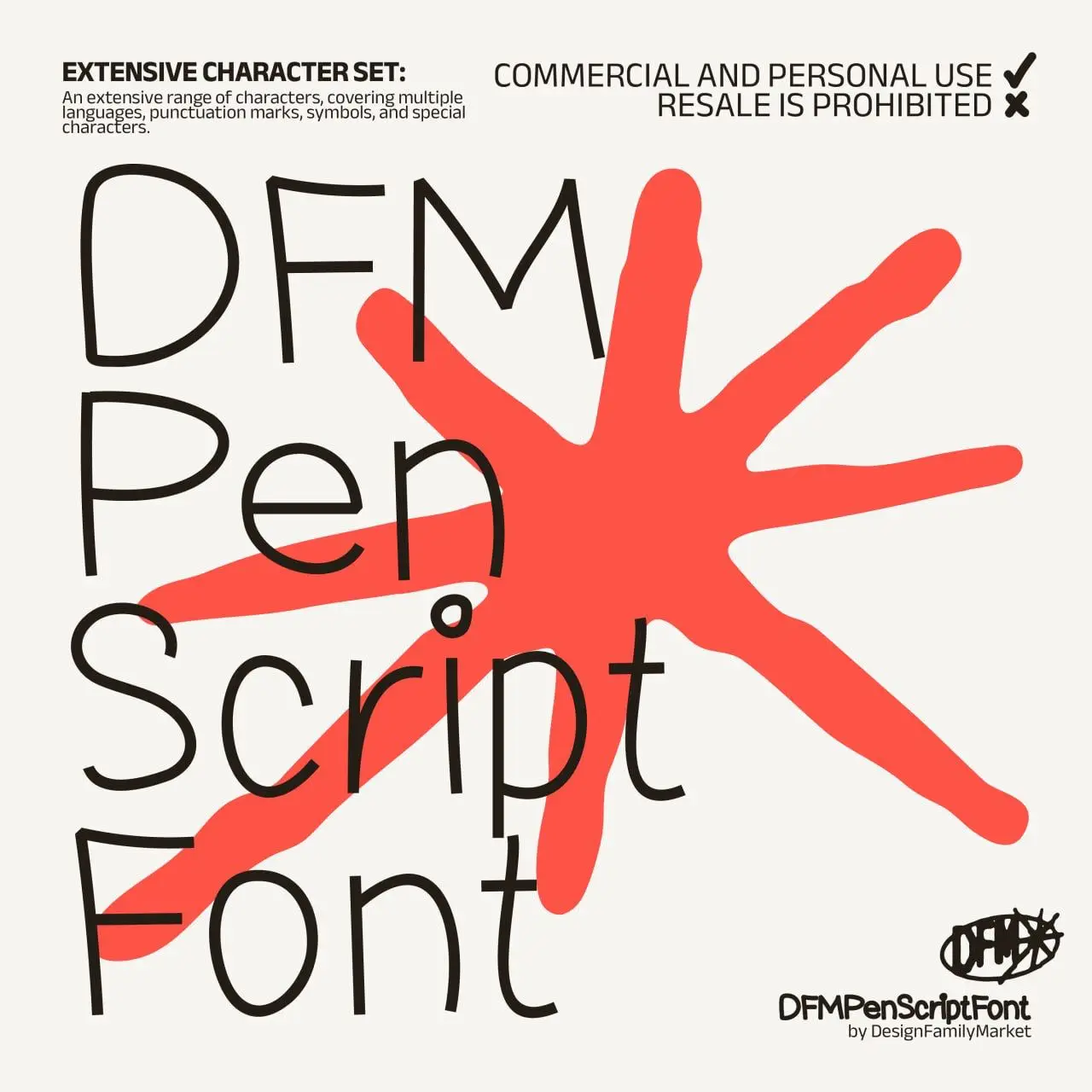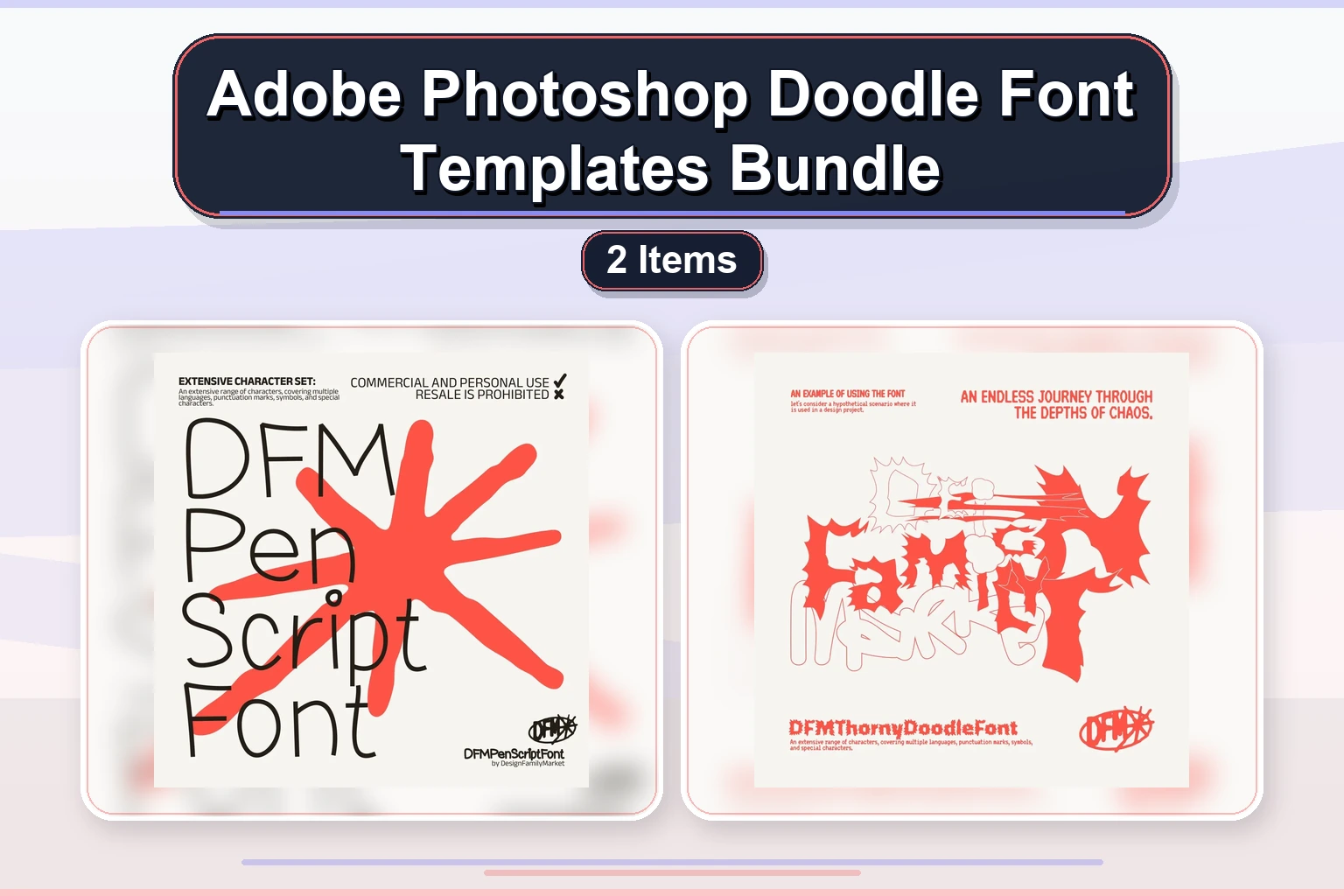
Adobe Photoshop Doodle Font Templates Bundle – 2 Items
Bring a hand-drawn, energetic feel to your next design project with the designfamilymarket Creative Bundle. This set of two distinct fonts gives you the freedom to switch from a soft, sketch-like pen script to a sharp, edgy Y2K aesthetic. Perfect for branding, apparel mockups, product packaging, or any project that needs a personal, non-digital touch.
1. DFM Pen Script Font – Hand-Drawn Linear Doodle Font
A playful, hand-drawn linear font with genuine pen-like strokes. Its simplistic, doodle-style characters bring a nostalgic, childhood charm to logos, quotes, and social media graphics. Ideal for adding a casual, friendly tone to your typography.
2. DFM Thorny Doodle Font – Sharp Distressed Y2K Font
A sharp, distressed font featuring thorny corners and a rebellious, Y2K-inspired edge. The textured, jagged letterforms are perfect for streetwear clothing mockups, grunge branding, skate stickers, and any project that demands attitude and originality.